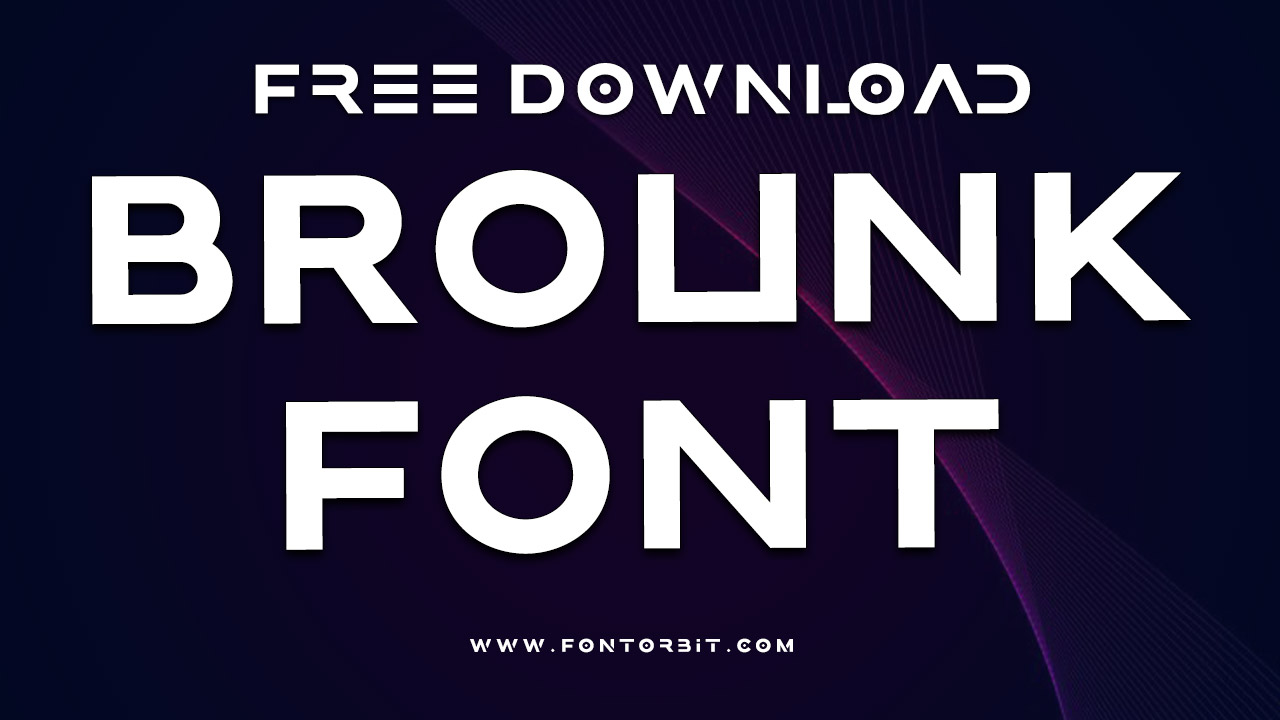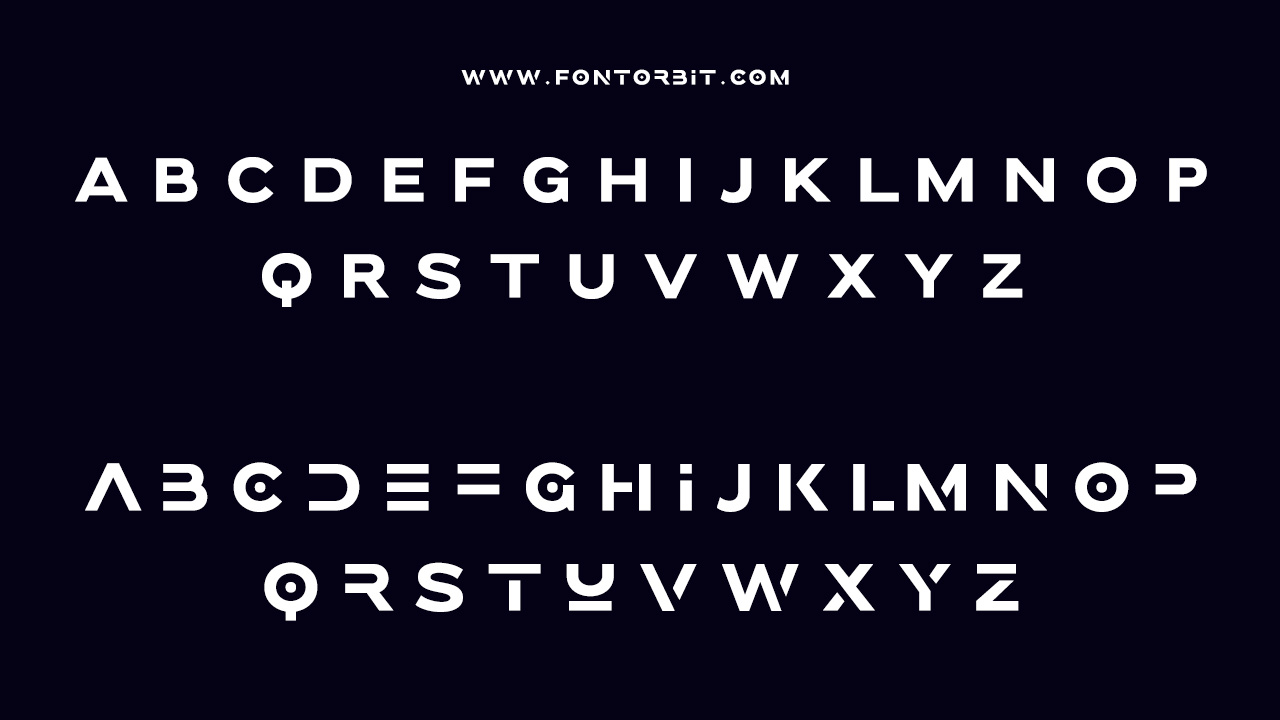
Brolink Font is a futuristic, techno-style typeface designed by Saridezra and released for free personal use. Known for its sleek, modern appearance and technological edge, Brolink Font adds a high-tech vibe to a variety of design projects. It is available for free for personal use and offers a premium version for commercial applications.
Brolink Font’s design features a clean, sans-serif style with a sci-fi flair, making it versatile for a range of uses. The font family includes:
- Brolink Regular
- Brolink Outline
Brolink Font’s distinctive, modern design makes it an excellent choice for futuristic and high-tech projects. Its sharp, clean lines and unique style are ideal for applications that benefit from a cutting-edge look.
Brolink Font is often used in contexts that demand a modern, technological appearance. Its design enhances various forms of communication and creative expressions with a sleek, professional touch.
Brolink Font embodies a modern, technological style that brings a futuristic edge to your designs. While it may not be suited for every project, it excels in applications where a sleek, high-tech look is desired.